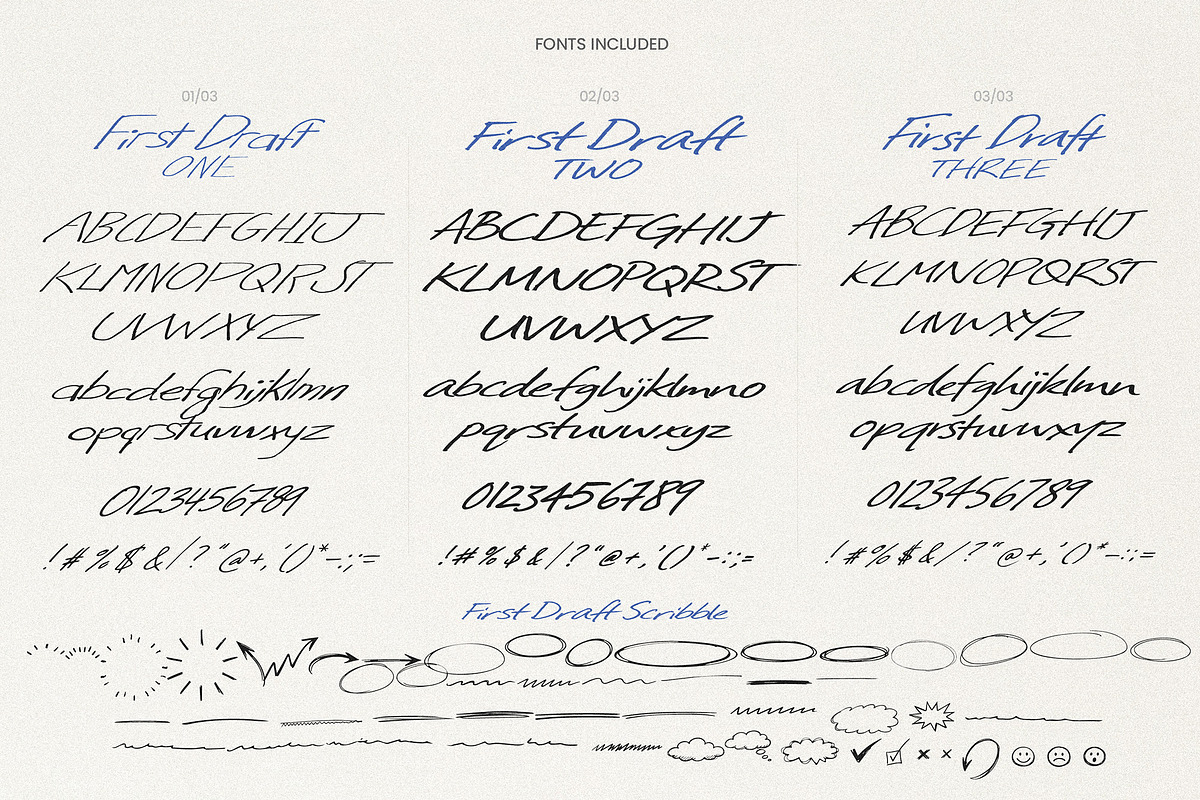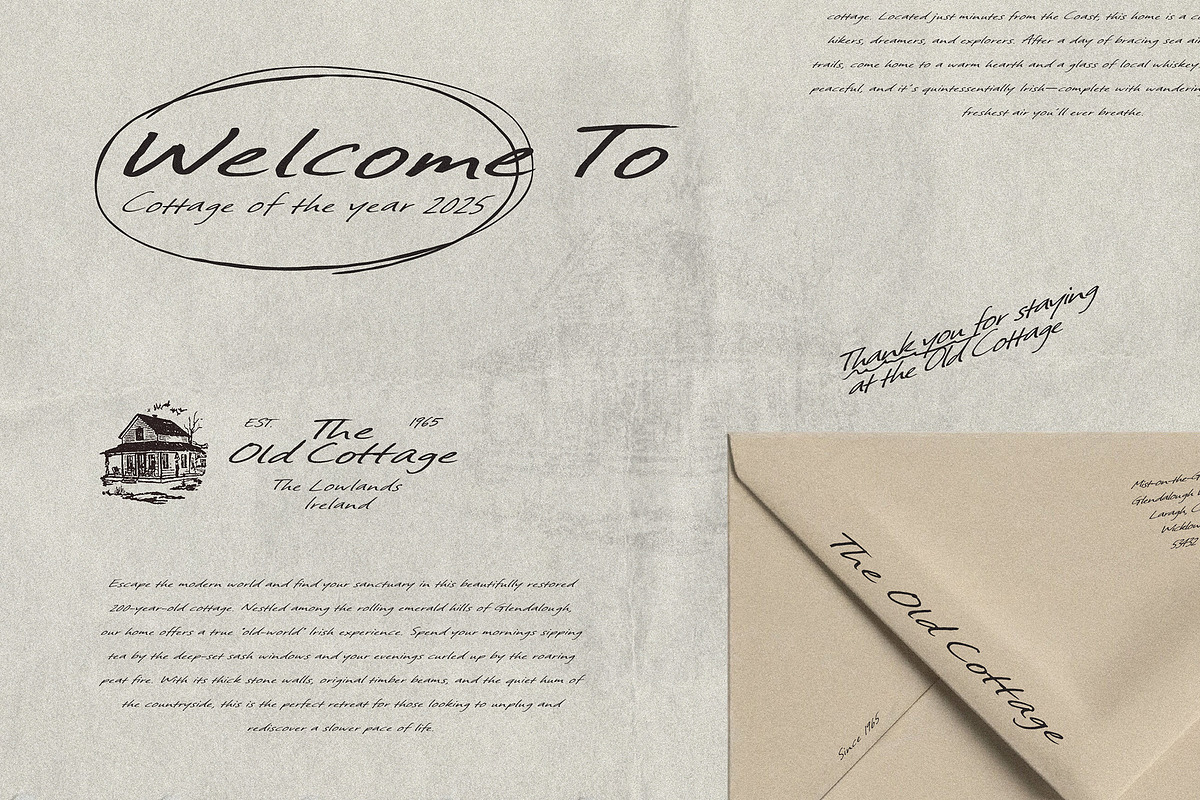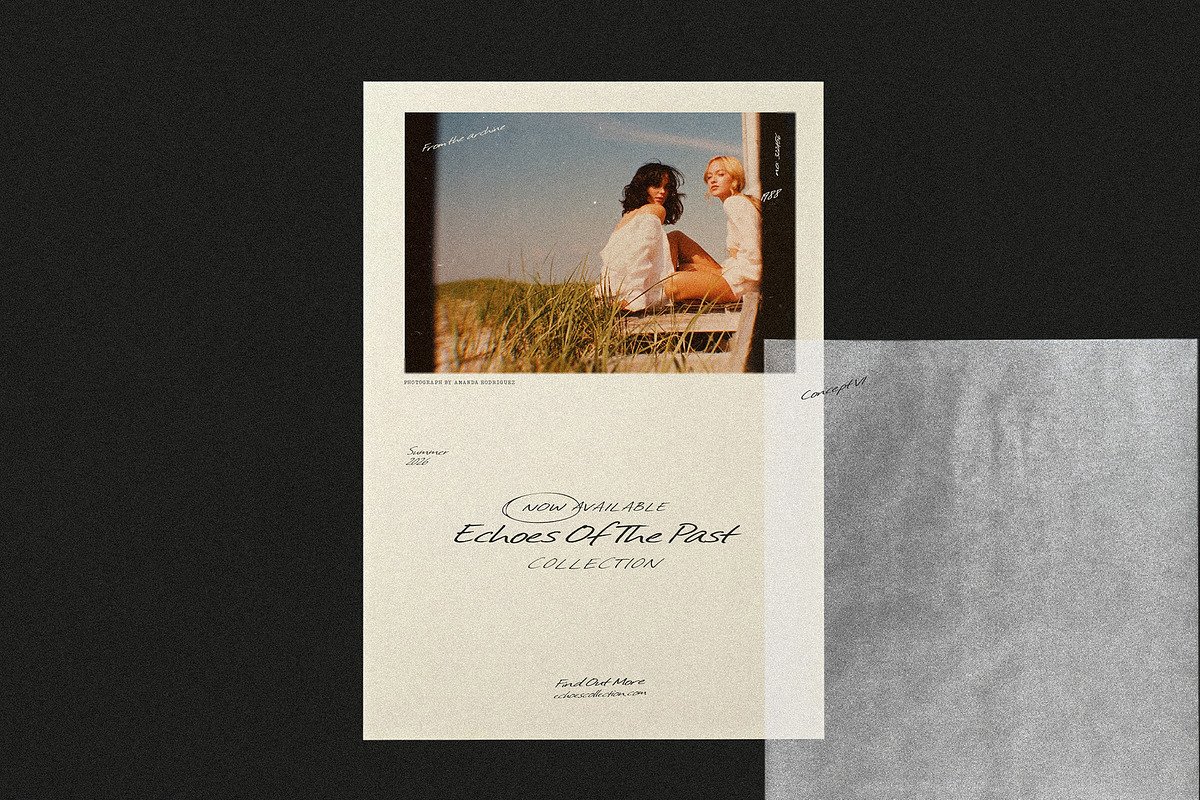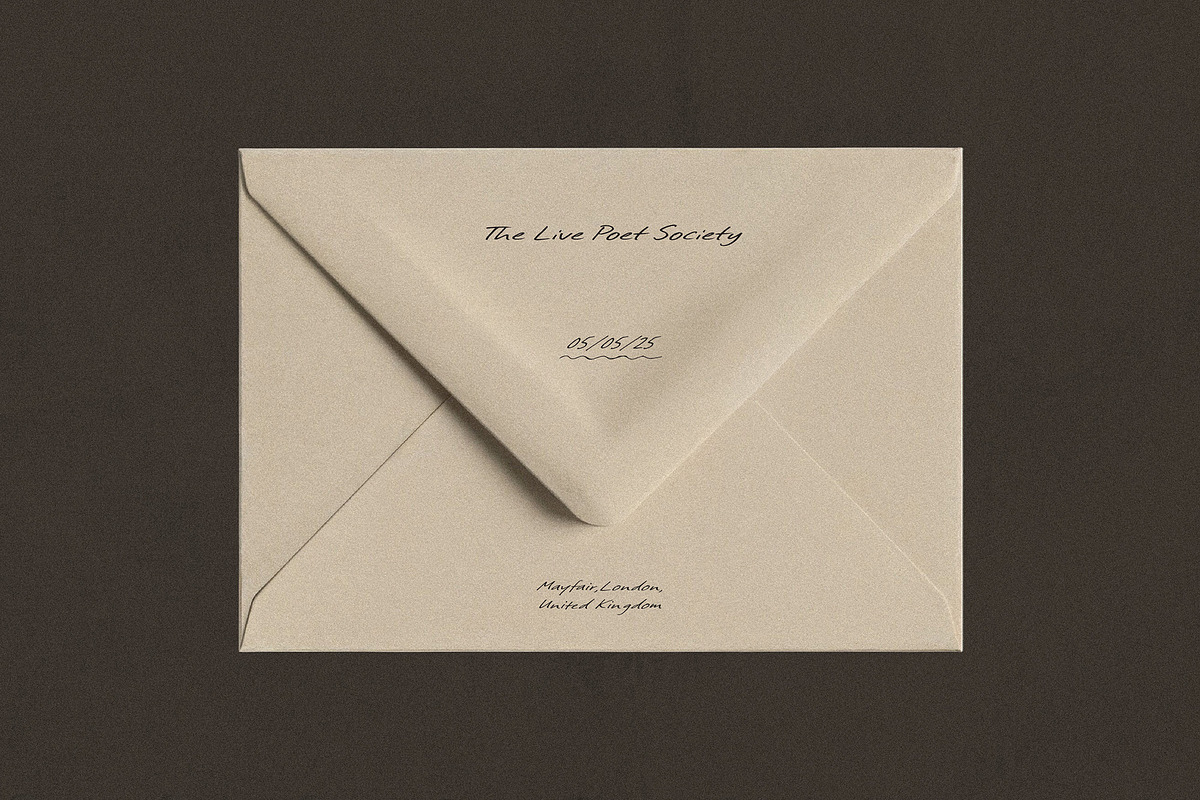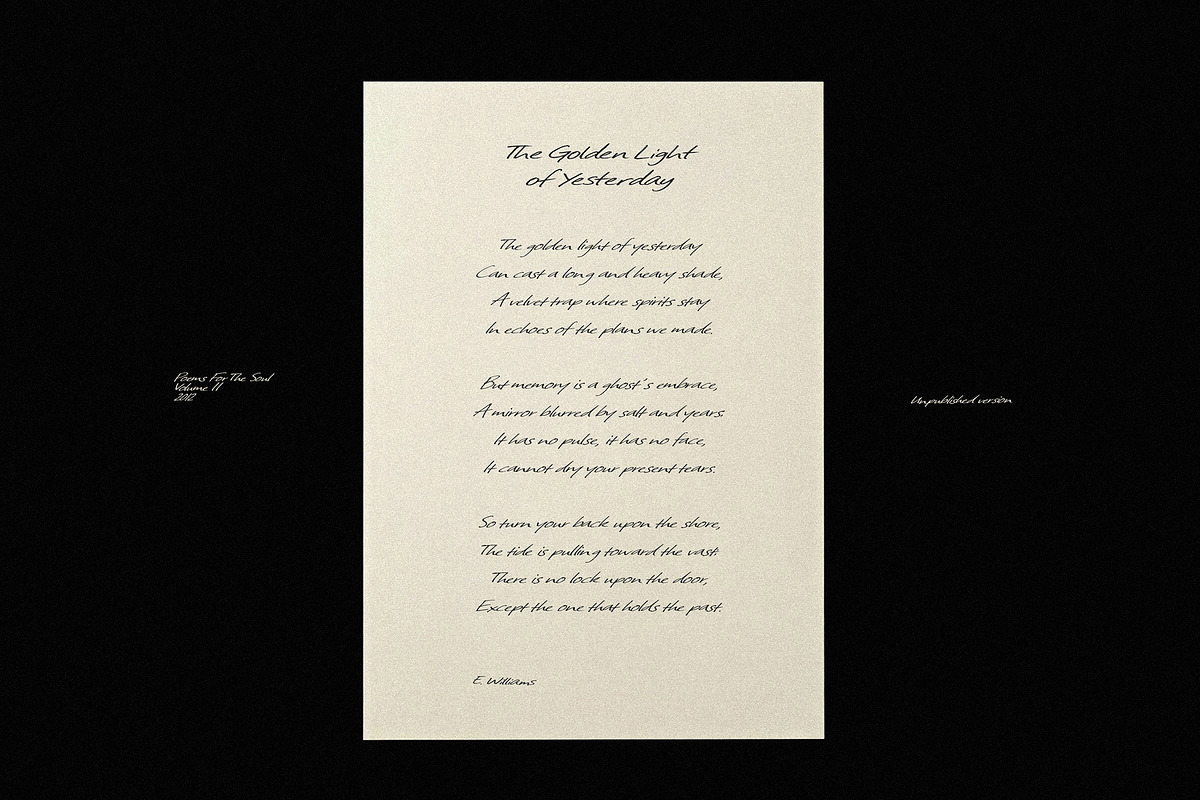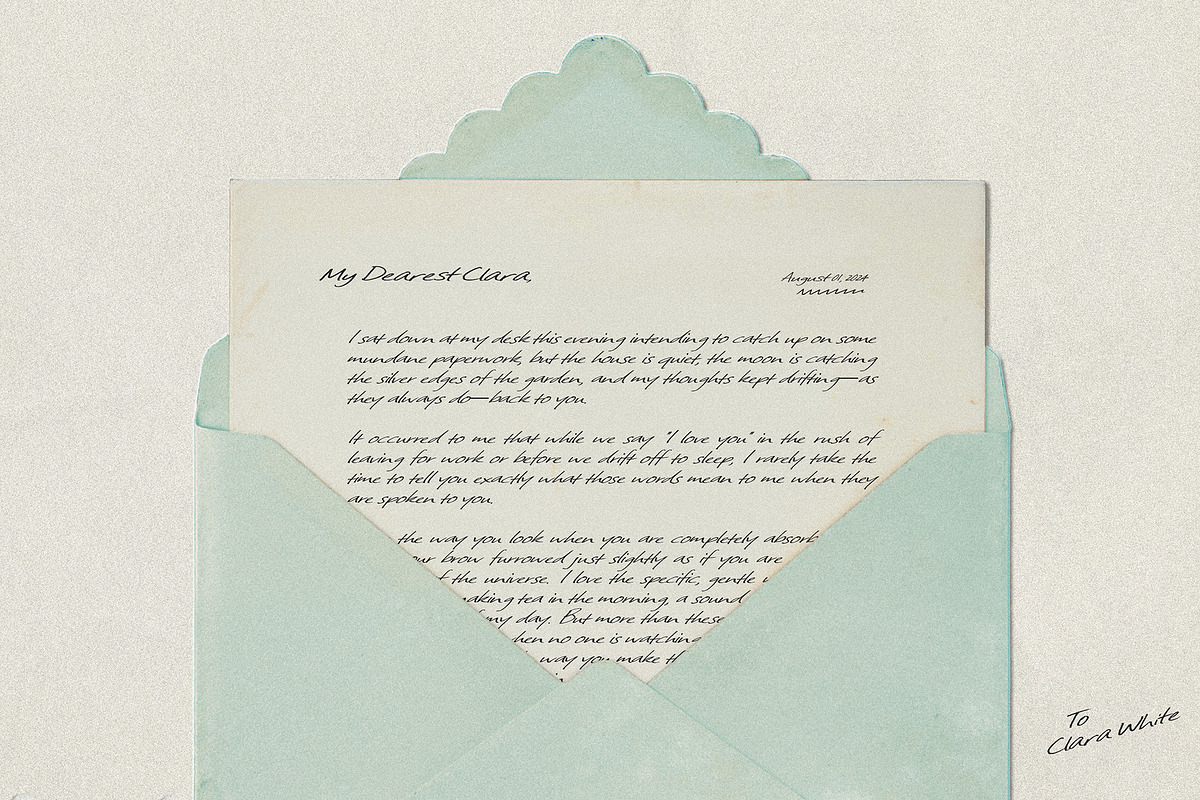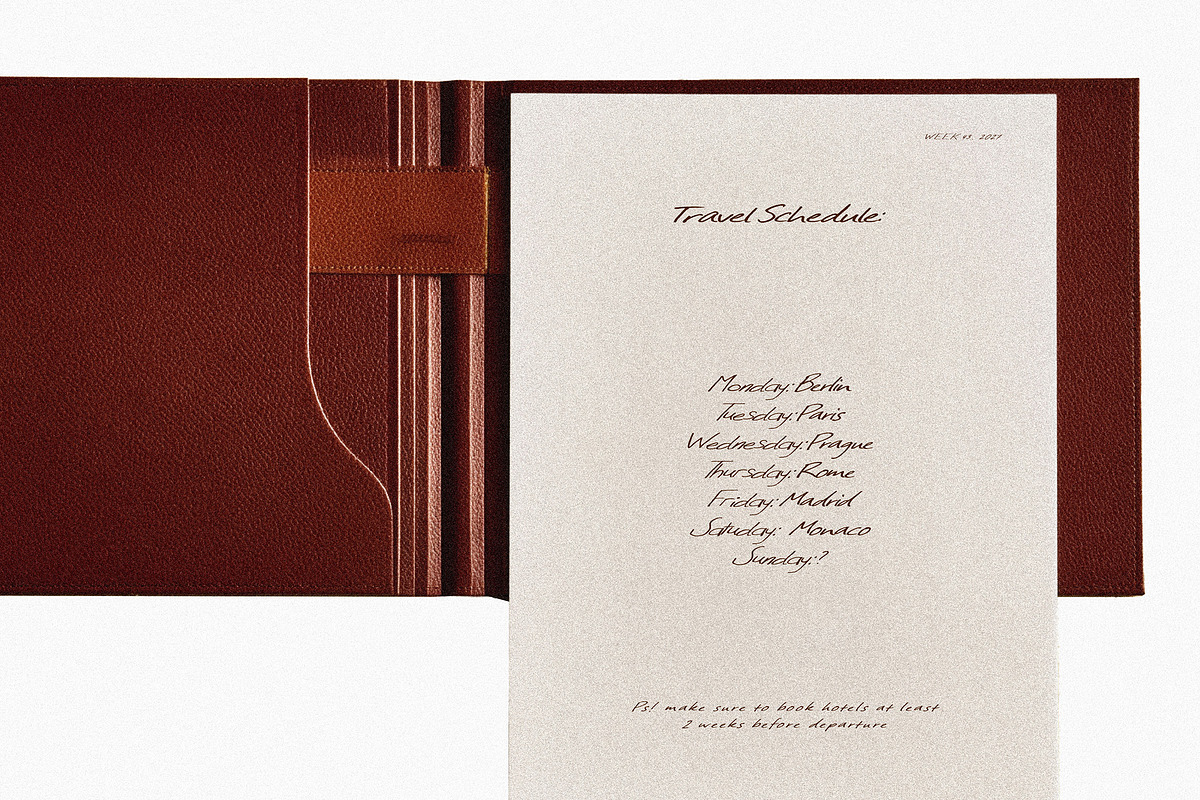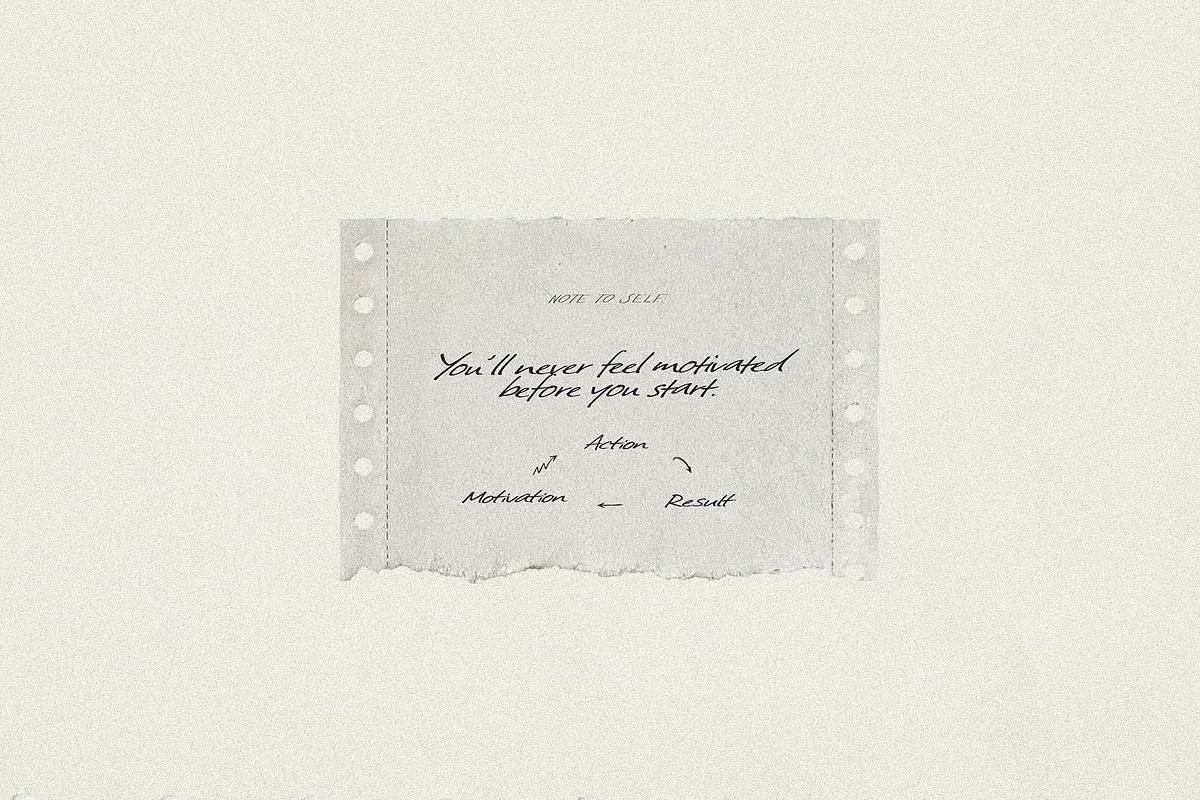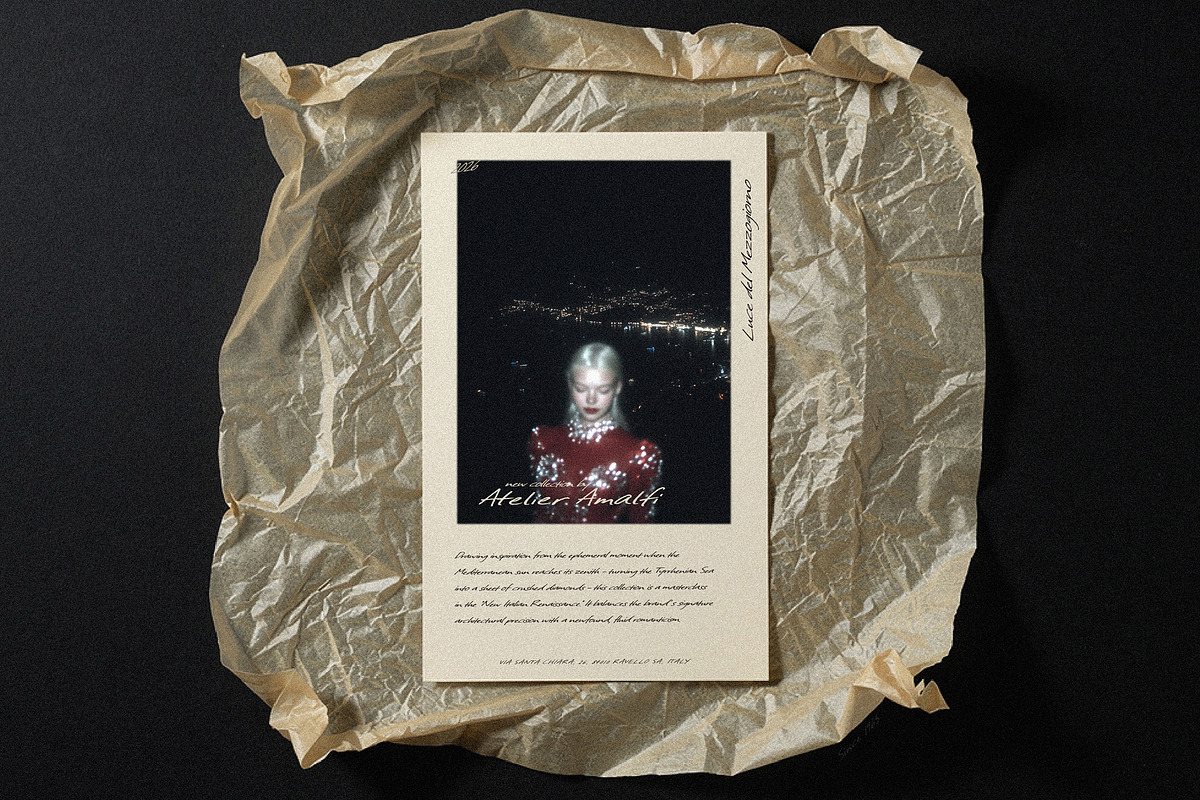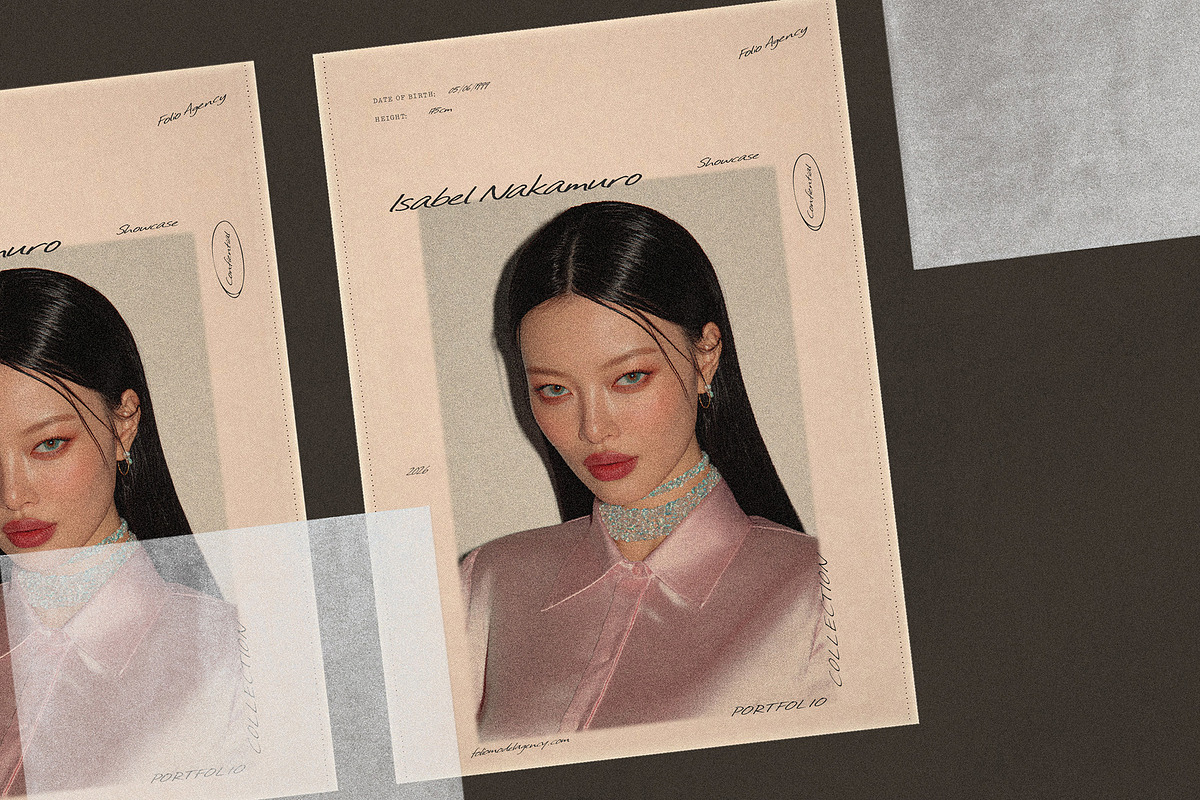
First Draft - Rough Handwritten Font
Embrace the beauty of the "unfinished" with the First Draft Collection. These fonts are designed to mimic the raw, organic feel of a quick note jotted down in a sketchbook or a letter written to a friend. They bring an authentic, human touch to your digital projects.
First Draft is all about the rustic, unpolished, and perfectly imperfect, leaving an authentic handmade impression & helping you stand out in the digitally sterile environment.
Use Cases:
Digital & Physical Journaling Use the fonts for headers or "sticky note" annotations in digital planners (like GoodNotes) or to create custom stickers for physical scrapbooking.
"Behind the Scenes" Social Media Perfect for Instagram Stories, Reels, or TikTok captions where you want to convey a "work in progress" or raw, authentic brand personality.
Rustic Wedding & Event Stationery Create "Save the Date" cards or place cards that look like they were hand-lettered by the host. It adds a warm, personal intimacy to the event.
Product Packaging & Labels Ideal for small-batch artisanal goods (candles, organic skincare, sourdough bread) where a "handmade" look reinforces the quality of the product.
Premium Branding & Logos Use the scribble dingbats and the script fonts to create a authentic brands that feel like they live in the actual physical world, not just the digital one.